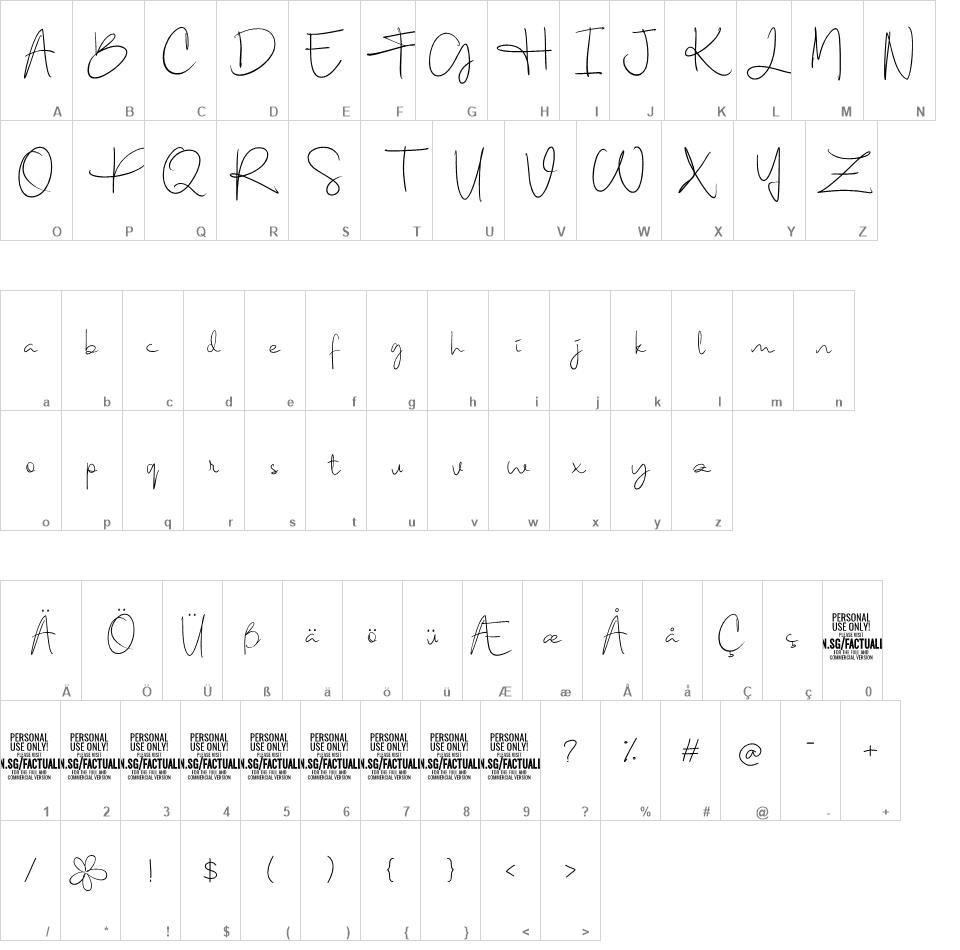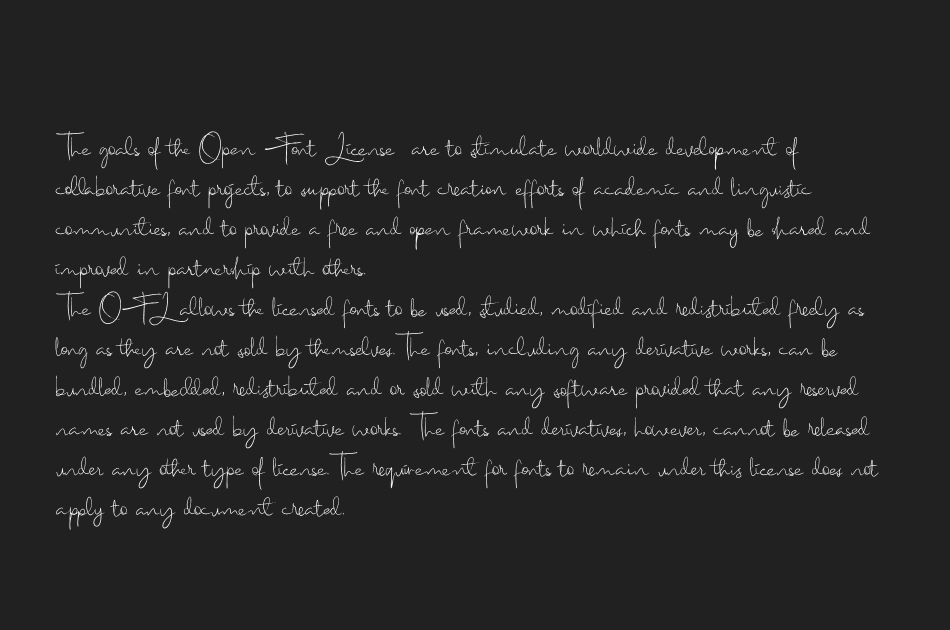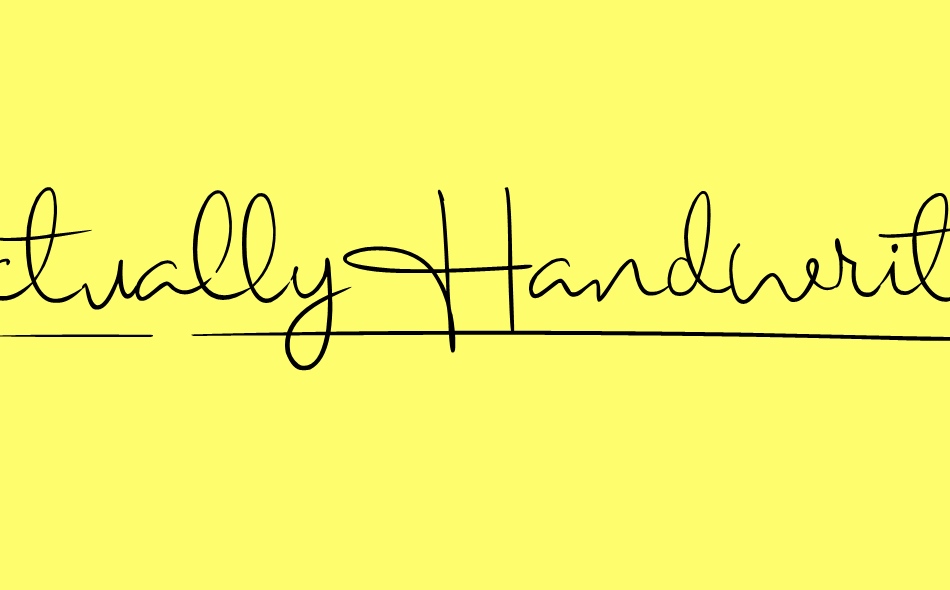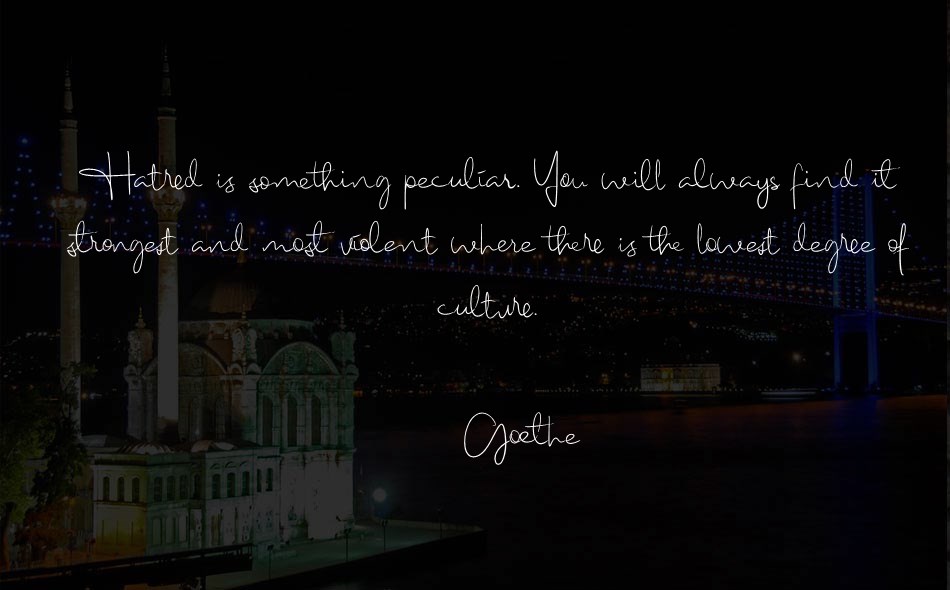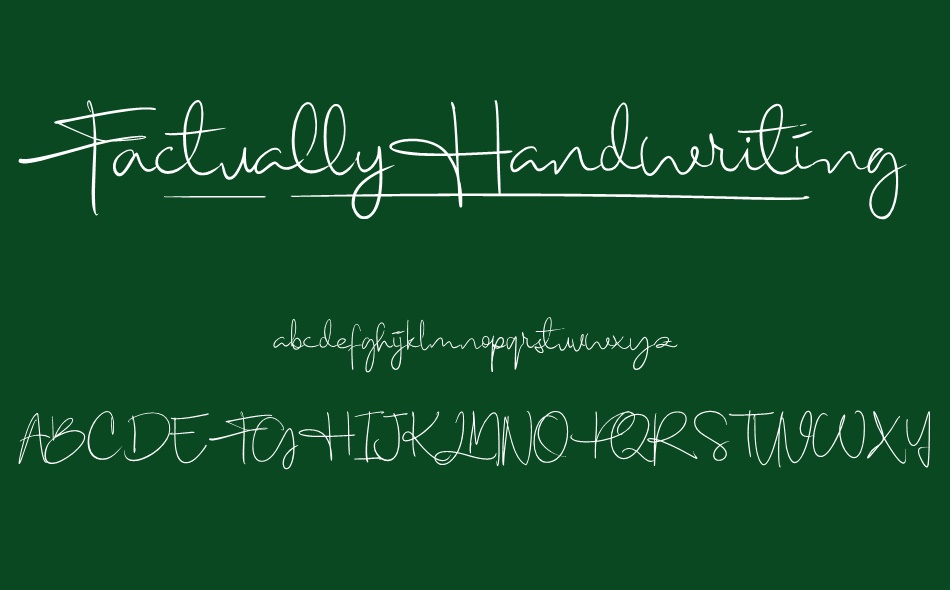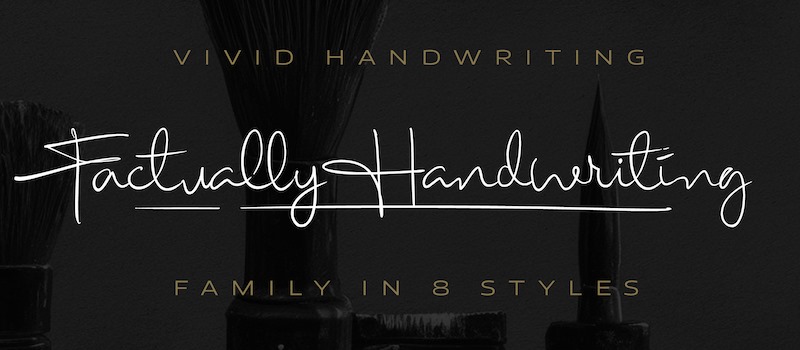
Factually Handwriting font
Use undercore _ anywhere in a to make a swash.
Example: Hand_Signature
Use multiple underscores to make different swashes.
Example: Candy___Bars
Use * to make flowers!
Beautiful*Spring
Blue***Roses
Factually Handwriting is a stunning signature-style font that conveys a sense of expressive hand-lettering with a genuine touch. Its effortless strokes and wild curves make it perfect for adding a personal touch to your projects.
Designed with a focus on authenticity, Factually Handwriting captures the beauty of natural handwriting, and consists of eight styles, including Regular, Italic, Bold, Alternate, Alternate Italic.
Each style of Factually Handwriting offers a unique aesthetic, giving you the freedom to experiment with different looks and create truly personalized designs.
This font is perfect for everything from logos and branding to social media posts and invitations. With its natural charm and expressive strokes, Factually Handwriting adds a touch of warmth and personality to any project.
Use undercore _ anywhere in a to make a swash. Example: Hand_Signature
Use multiple underscores to make different swashes. Example: Candy___Bars
Use * to make flowers! Beautiful*Spring Blue***Roses
The font is built with advanced OpenType functionality and has a guaranteed top-notch quality, containing stylistic and contextual alternates, ligatures and more features; all to give you full control and customizability. It has extensive lingual support, covering all Latin-based languages, from Northern Europe to South Africa, from America to South-East Asia. It contains all characters and symbols you'll ever need, including all punctuation and numbers.